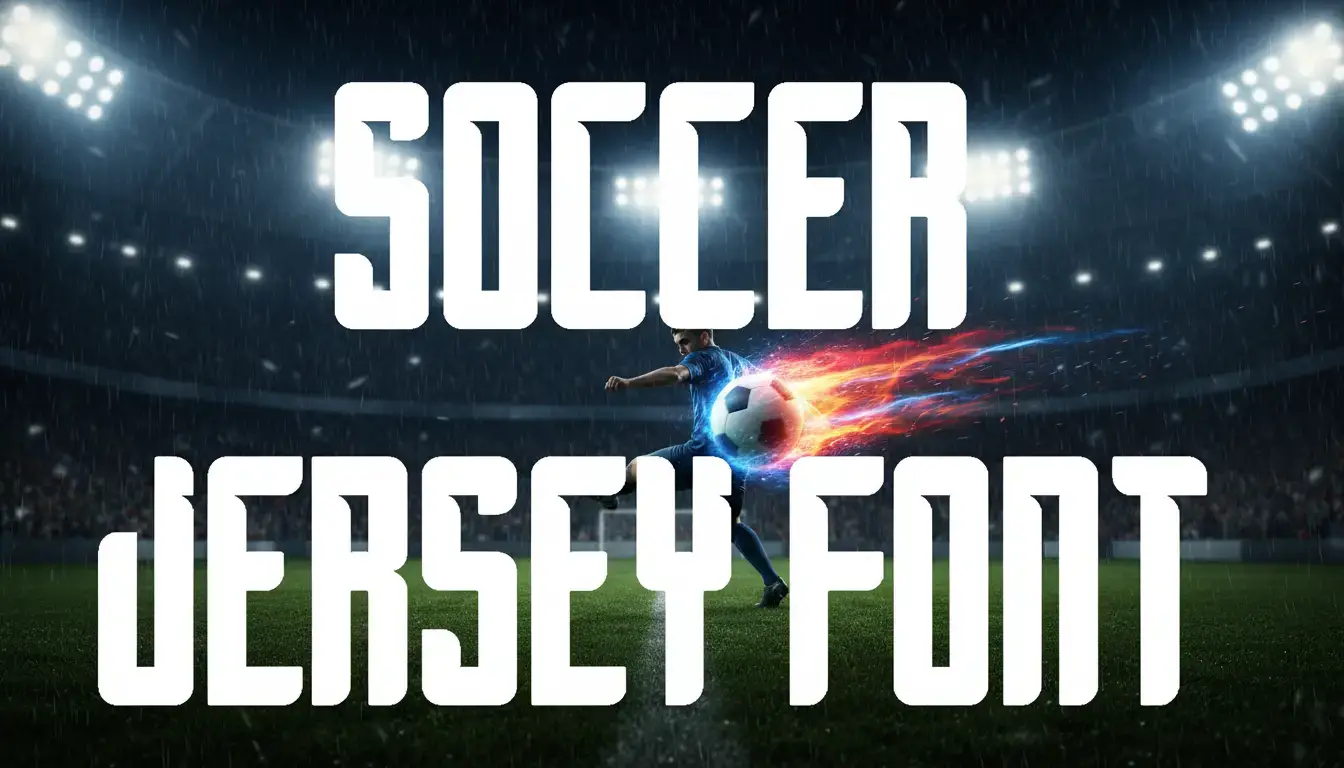
Soccer Jersey Font
Soccer Jersey is a fancy font made by André Felipe. It's a decorative display font with plenty of personality, made to grab attention. It's a free download, and you can try it with your own text in the preview above first.
Soccer Jersey covers the full alphabet in upper and lowercase, plus all ten numbers, so you can set names, dates and prices without switching fonts. Everyday marks like &, !, ? and @ are there too. Thanks to its accented letters, it also works for Spanish, French, Portuguese and Italian, not just English.
Think of Soccer Jersey for posters, logos and eye-catching headlines. Use it for one standout word or headline and let simpler fonts handle the rest.
Yes. Soccer Jersey includes the accented letters needed for Spanish, French, Portuguese and Italian, so it works for more than just English.